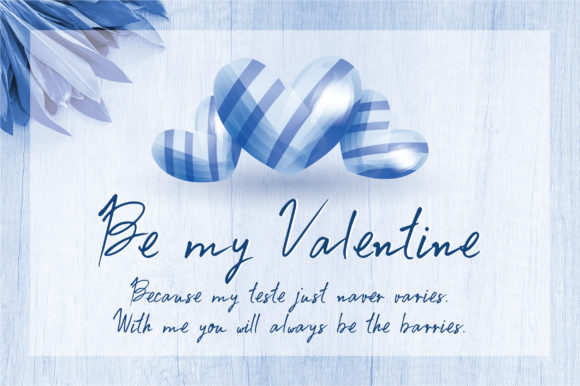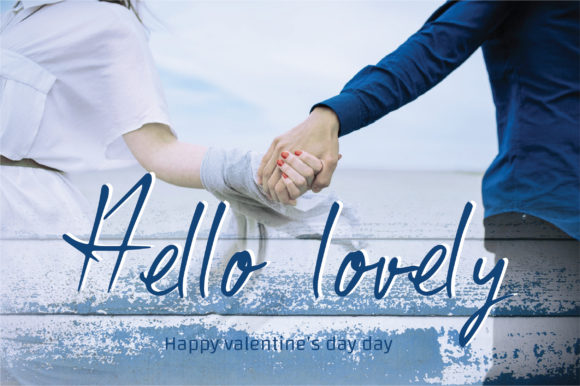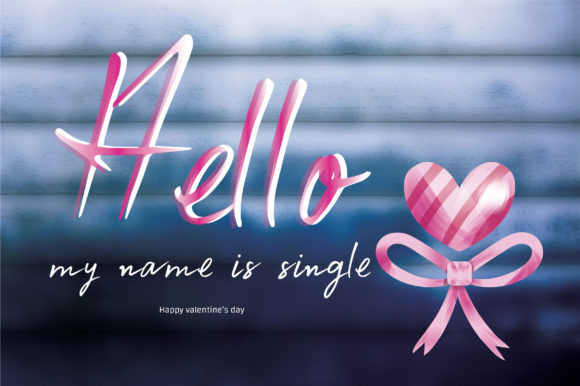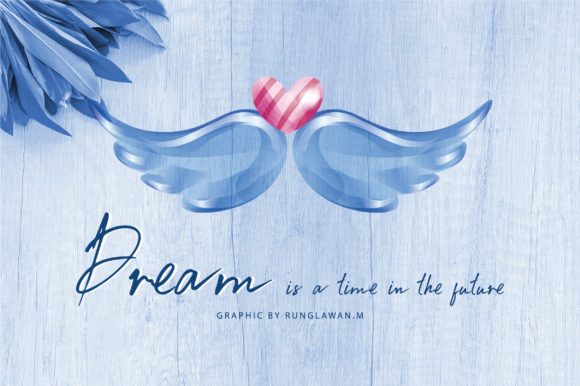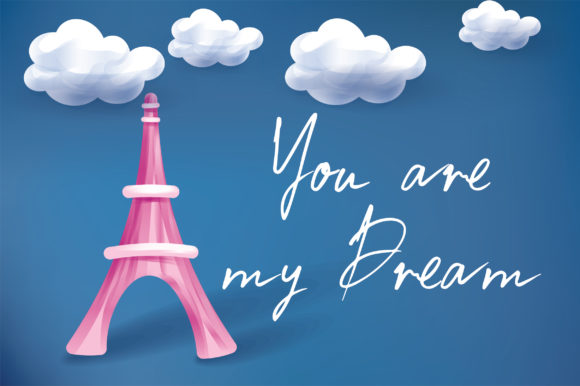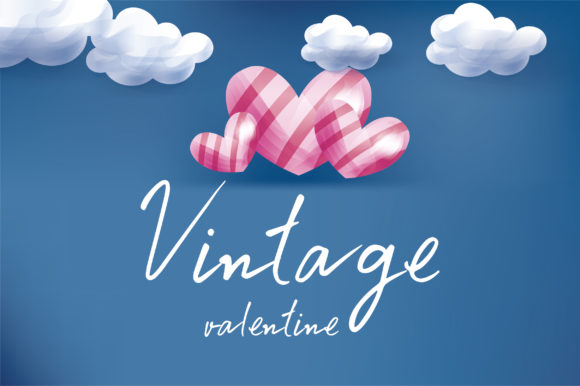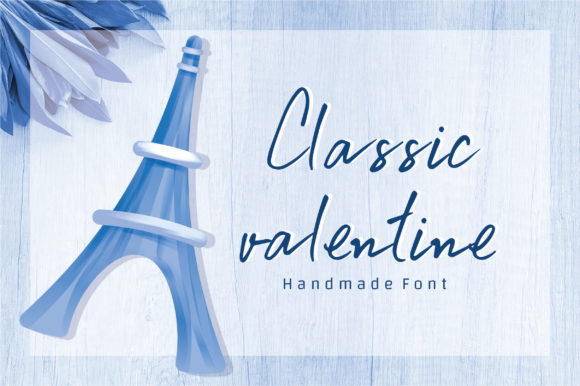
Introducing Classic Valentine Font: A Timeless Union of Elegance and Modernity
Valentine’s Day is just around the corner, and what better way to express your love and affection than with a beautiful, classic font that exudes romance and sophistication? Look no further than the Classic Valentine Font, a stunning script that seamlessly blends traditional calligraphy with a modern twist. This gorgeous font is sure to capture the hearts of designers, crafters, and anyone looking to add a touch of elegance to their projects.
The Perfect Blend of Classic and Modern
Classic Valentine Font is a masterful fusion of classic calligraphy and modern sensibility. Its unique script style feels both light and romantic, making it an excellent addition to any crafter’s library. Whether you’re creating Valentine’s Day cards, wedding invitations, or simply want to add a personal touch to your digital designs, this font is sure to impress.
What Makes Classic Valentine Font So Special?
- Unique Script Style: Classic Valentine Font boasts a distinctive script style that sets it apart from other fonts. Its elegant, cursive letters are perfect for adding a touch of sophistication to any project.
- Romantic and Whimsical: This font exudes a sense of romance and whimsy, making it ideal for Valentine’s Day-themed projects, wedding designs, and other celebrations of love.
- Modern Sensibility: Despite its classic roots, Classic Valentine Font has a modern feel that will appeal to designers and crafters looking for a fresh take on traditional calligraphy.
How to Use Classic Valentine Font in Your Designs
Classic Valentine Font is incredibly versatile and can be used in a variety of design projects. Here are a few ideas to get you started:
- Valentine’s Day Cards and Invitations: Create beautiful, one-of-a-kind Valentine’s Day cards and invitations using Classic Valentine Font.
- Wedding Designs: Add a touch of elegance to your wedding designs, including invitations, programs, and place cards.
- Digital Designs: Use Classic Valentine Font in your digital designs, such as social media graphics, blog posts, and email newsletters.
- Crafting Projects: Incorporate Classic Valentine Font into your crafting projects, including scrapbooking, journaling, and card making.
Tips for Getting the Most Out of Classic Valentine Font
To make the most of Classic Valentine Font, here are a few tips to keep in mind:
- Experiment with Different Sizes and Colors: Try out different font sizes and colors to see how they affect the overall look and feel of your design.
- Combine with Other Fonts: Pair Classic Valentine Font with other fonts to create a unique and visually appealing design.
- Use in Conjunction with Graphics and Images: Combine Classic Valentine Font with graphics and images to add depth and interest to your design.
Classic Valentine Font is a truly unique and special font that is sure to capture the hearts of designers and crafters alike. Its perfect blend of classic calligraphy and modern sensibility makes it an excellent addition to any design library. Whether you’re creating Valentine’s Day-themed projects, wedding designs, or simply want to add a touch of elegance to your digital designs, Classic Valentine Font is the perfect choice.